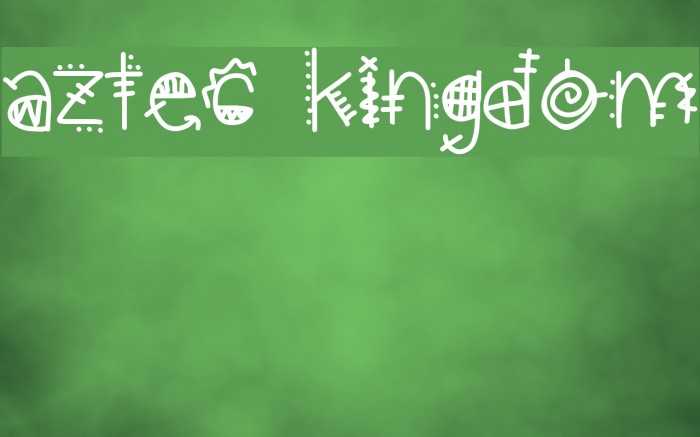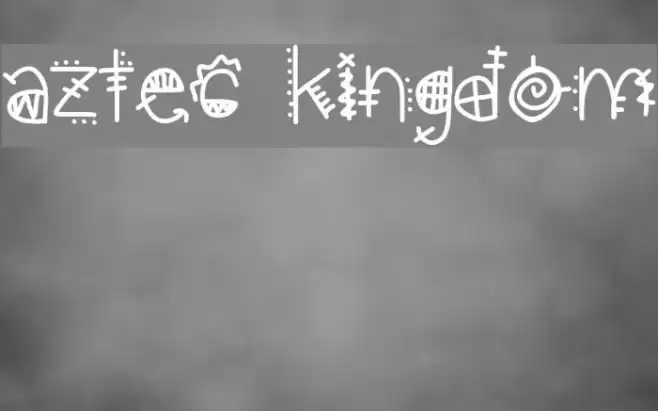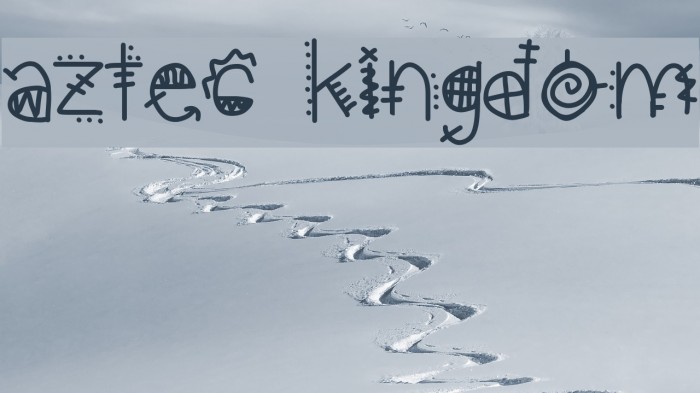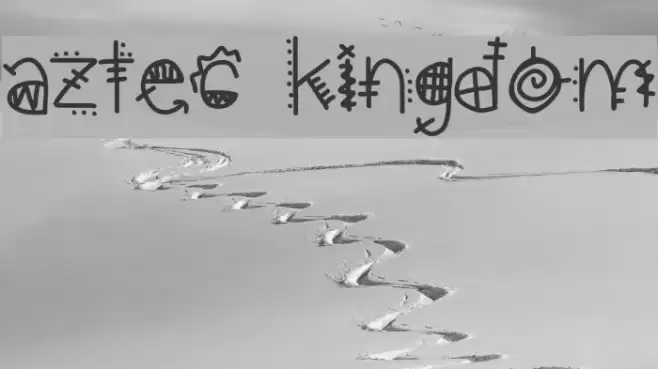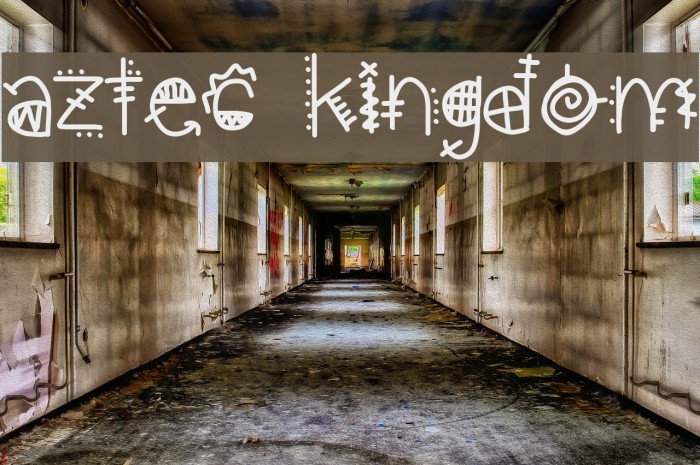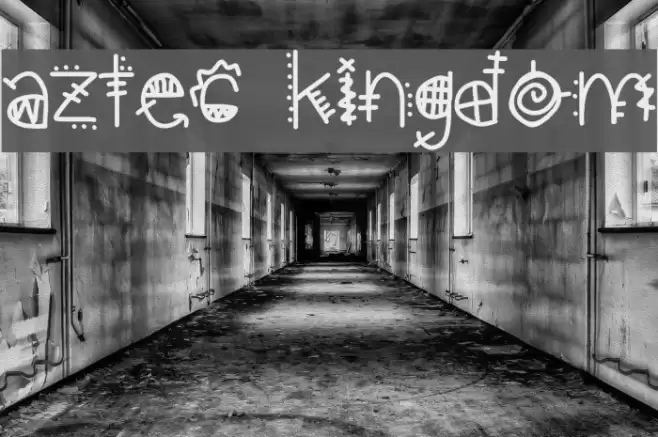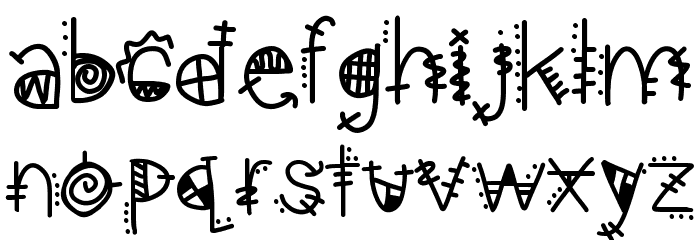
aztec kingdom Font
aztec kingdom Description
This font features a highly decorative and intricate design, drawing inspiration from ancient Aztec motifs. Each character is adorned with unique patterns, including dots, lines, and geometric shapes, creating a visually complex and engaging appearance. The letters have a playful and artistic quality, with varying stroke widths and embellishments that give them a handcrafted feel. The overall style is bold and eye-catching, making it suitable for projects that require a distinctive and cultural aesthetic.
| Proposed Projects | Ideal for cultural-themed posters, artistic projects, branding for creative businesses, and decorative headlines. |